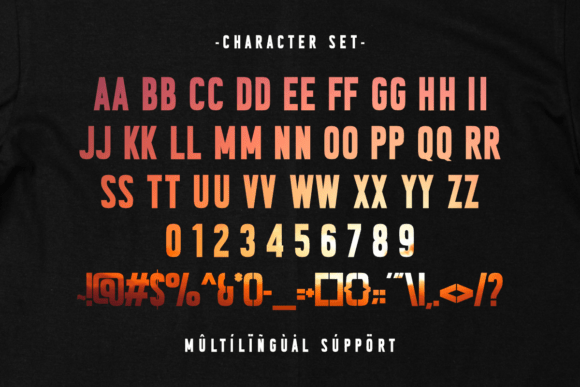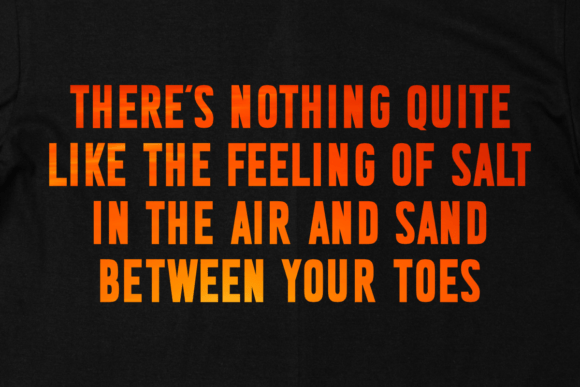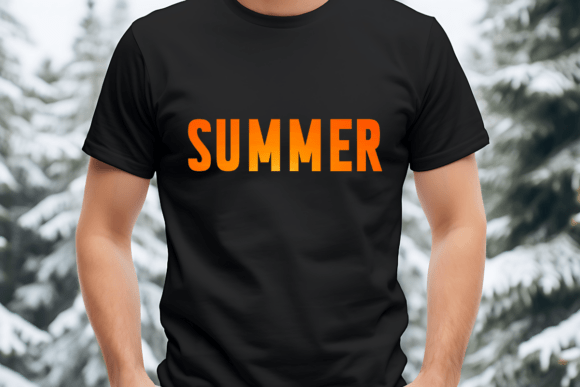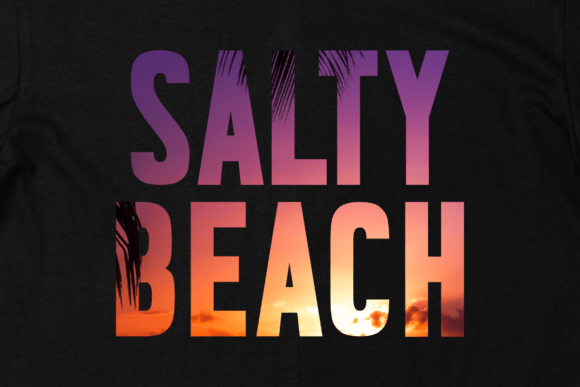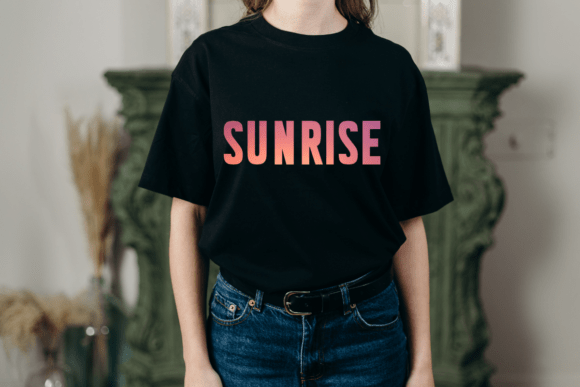
Introduction to Salt Sand Font
Salt Sand is a bold and breezy summer sans serif font that radiates beach vibes, ocean breeze, and sunset warmth — perfect for creative crafters and Print On Demand sellers.
Designed with clean, strong letterforms and a laid-back personality, this font is ideal for summer-themed projects and seasonal designs Perfect for t-shirts, beach mugs, tropical tote bags, vacation signs, travel stickers, sublimation prints, and Cricut crafts.
Salt Sand Font offers exceptional quality and versatility, making it a valuable addition to your design toolkit. Whether you’re creating for personal projects or commercial use, Salt Sand Font delivers professional results.